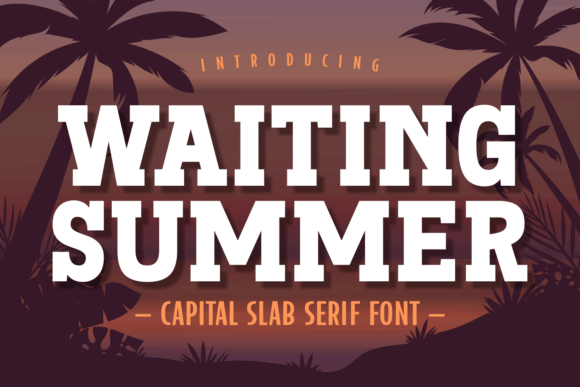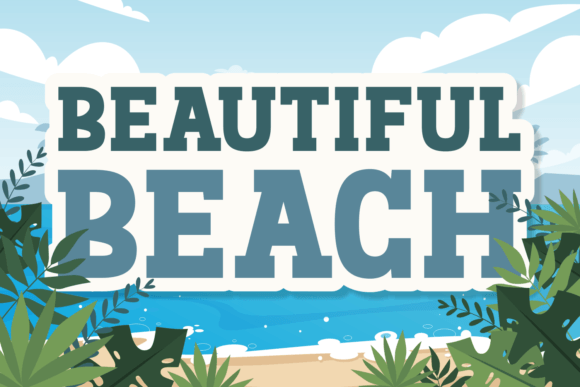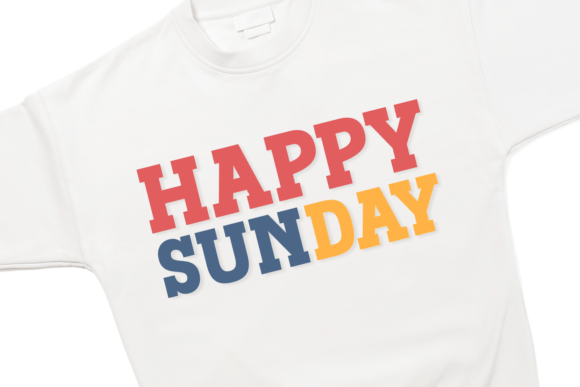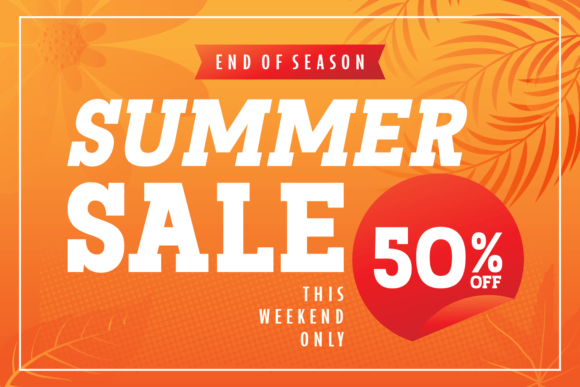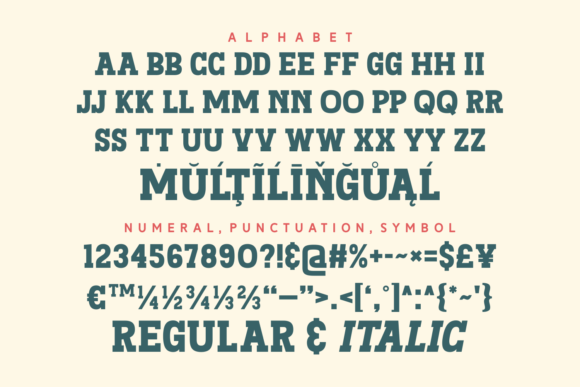
Waiting Summer
Waiting Summer: A Unique and Astounding Slab Serif Font
Waiting Summer is a unique and astounding slab serif font. It’s perfect for any branding project such as logos, t-shirt printing, creative products, or pretty much anything that could benefit from a strong serif, clean vibe.
Key Features of Waiting Summer
• Unique Design: Offers a distinctive and eye-catching look suitable for various applications.
• Slab Serif Structure: Features bold, rectangular serifs that add character and strength.
• Clean Aesthetic: Brings a modern and crisp feel to designs.
• Versatile Application: Ideal for both print and digital media projects.
Ideal Uses for Waiting Summer
Waiting Summer’s unique characteristics make it particularly well-suited for:
When incorporating Waiting Summer into your designs, consider these tips:
• Use for headlines or short blocks of text to showcase its unique style.
• Utilize its clean vibe to create modern and impactful designs.
Waiting Summer is an excellent choice for designers looking to add a unique and astounding slab serif font to their typographic toolkit. Its ability to bring a strong serif and clean vibe to various design projects makes it stand out in the world of typography. Whether you’re working on branding, creating t-shirt designs, or developing content that requires a bold and modern touch, Waiting Summer offers the perfect blend of style and functionality.
Furthermore, Waiting Summer’s distinctive design allows it to shine in various contexts. From minimalist logos to more elaborate creative products, this font can elevate your projects with its unique character. Its strong yet clean appearance works particularly well in designs that require a thoughtful and engaging mood.
In conclusion, Waiting Summer is a font that truly captures the essence of modern design and impact in typography. Its ability to work well in both simple and complex layouts showcases its versatility. For those looking to add a touch of unique charm to their work, Waiting Summer can enhance themed creations with its distinctive style. It’s the perfect choice for designers seeking to make a strong, stylish impact across a wide range of creative projects.